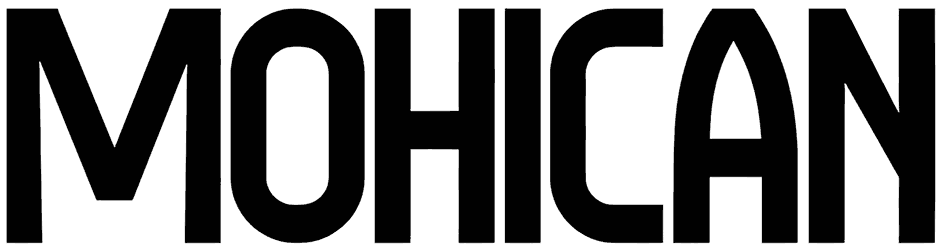
Mohican Font
For designing many headers, magazines, digital apps, posters, and other displays that need a strong statement with a futuristic spirit, you need an empathic sans serif font. Mohican, within two sets of capital letters, runs smoothly to make up for the lack of lowercase letters.